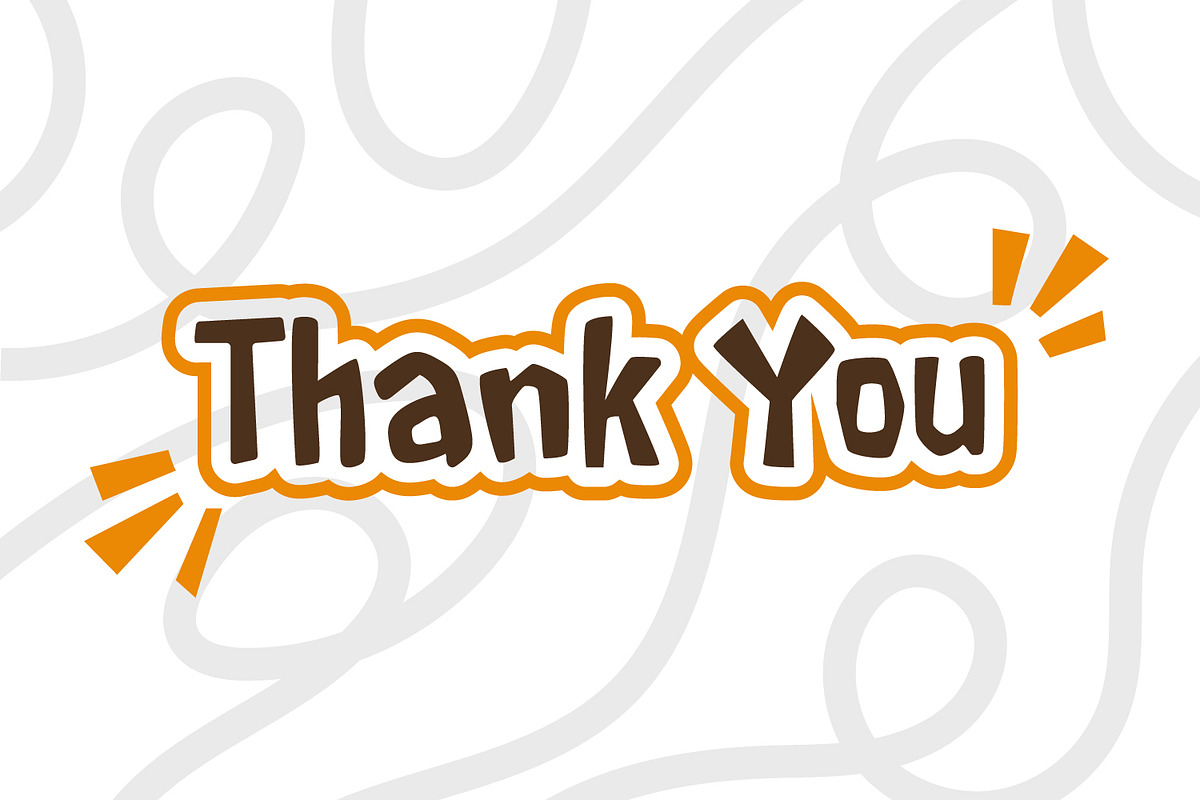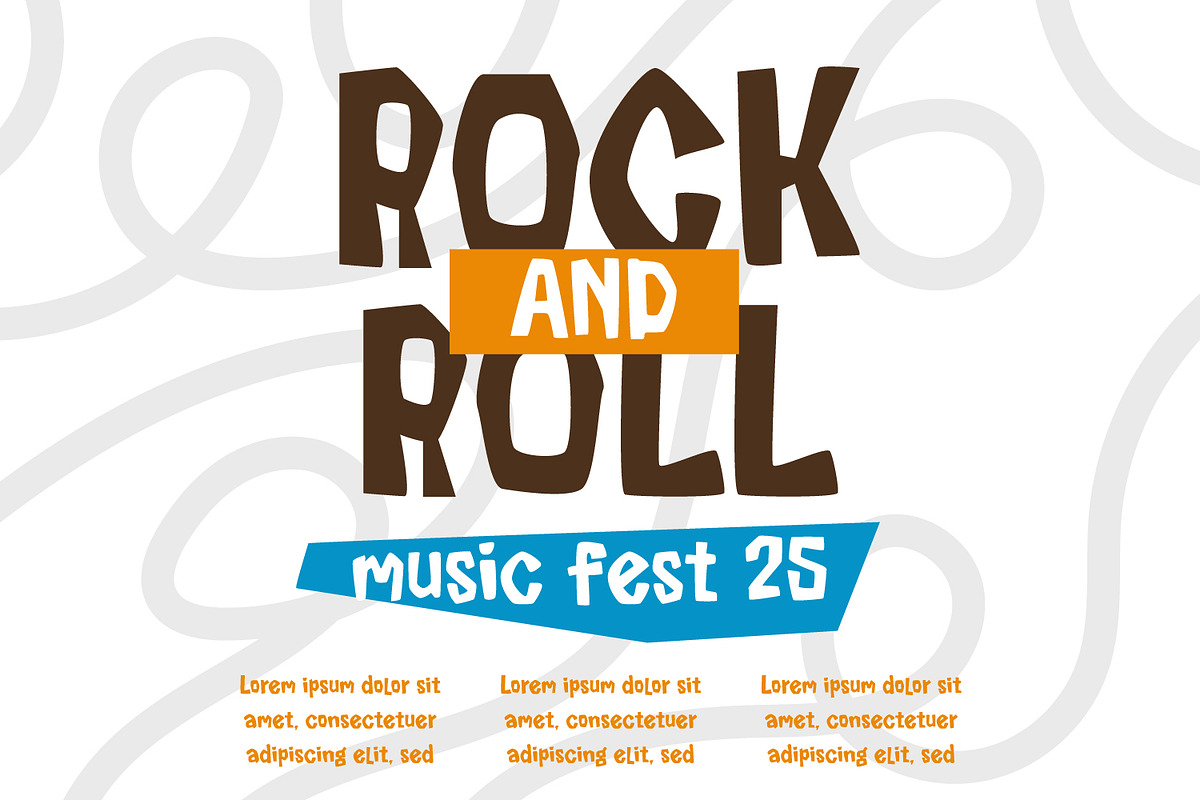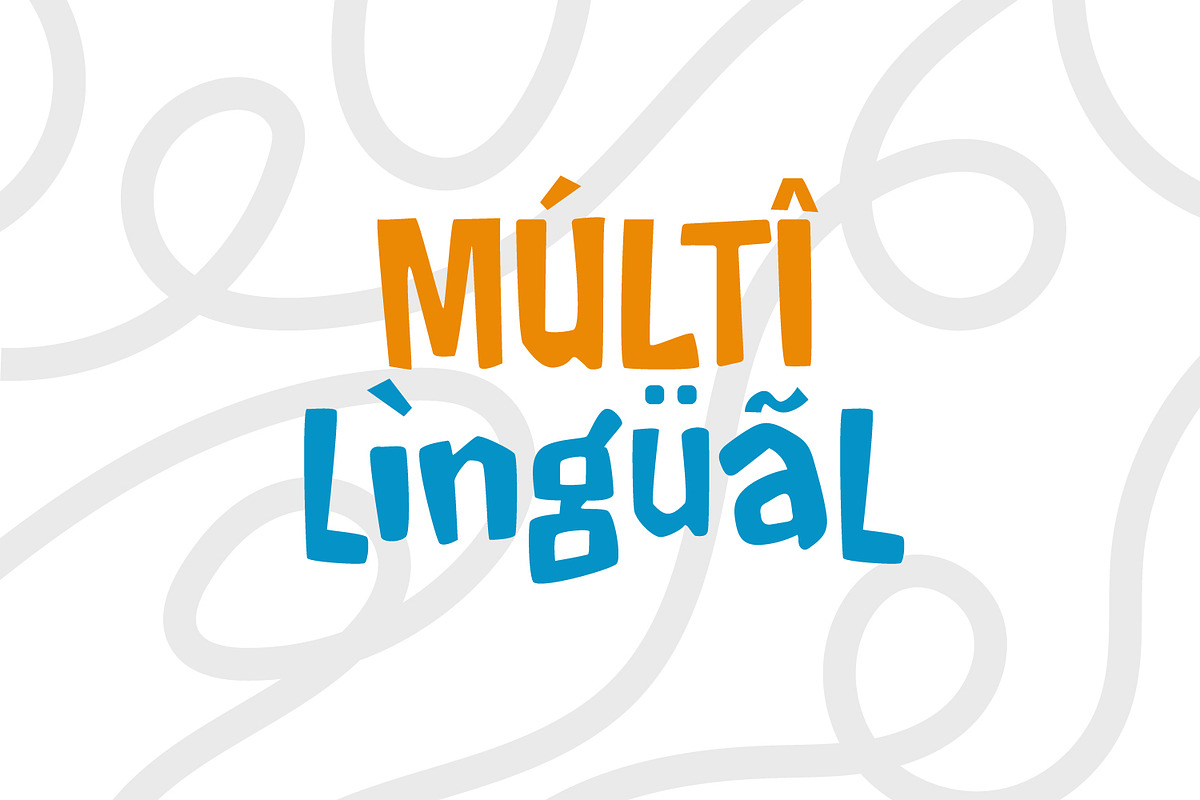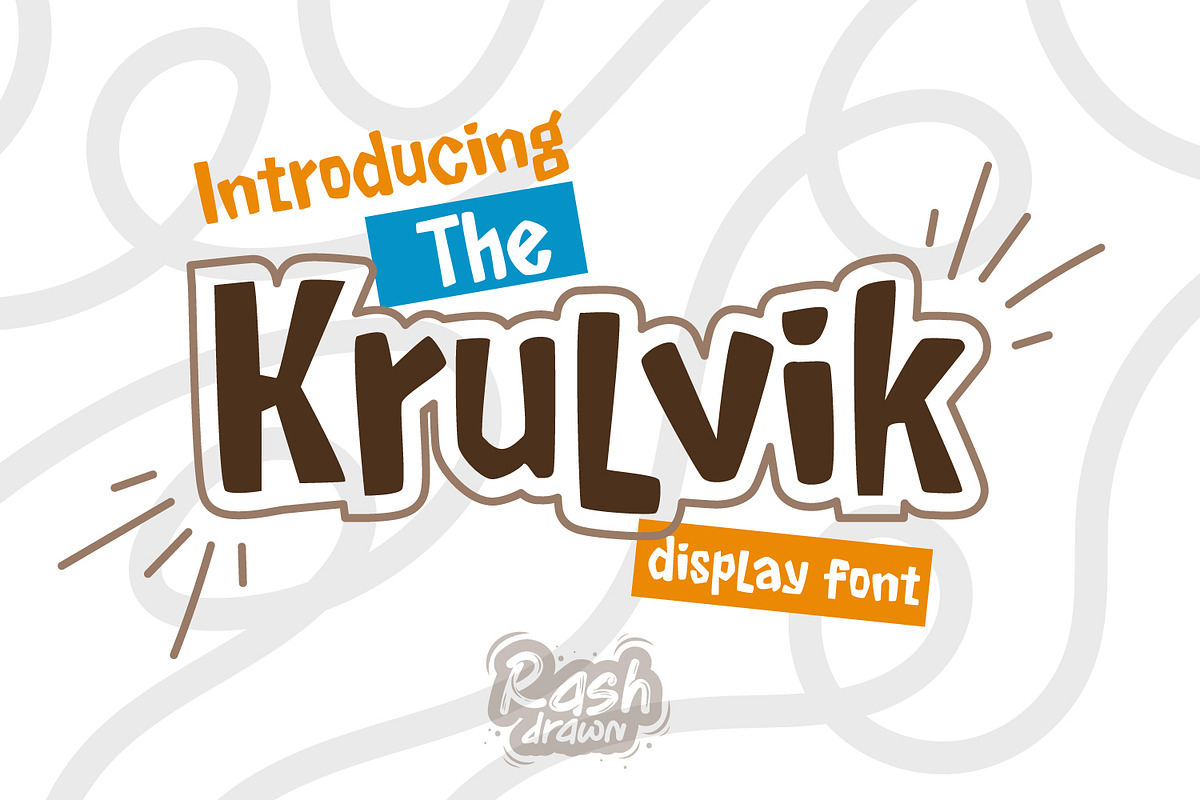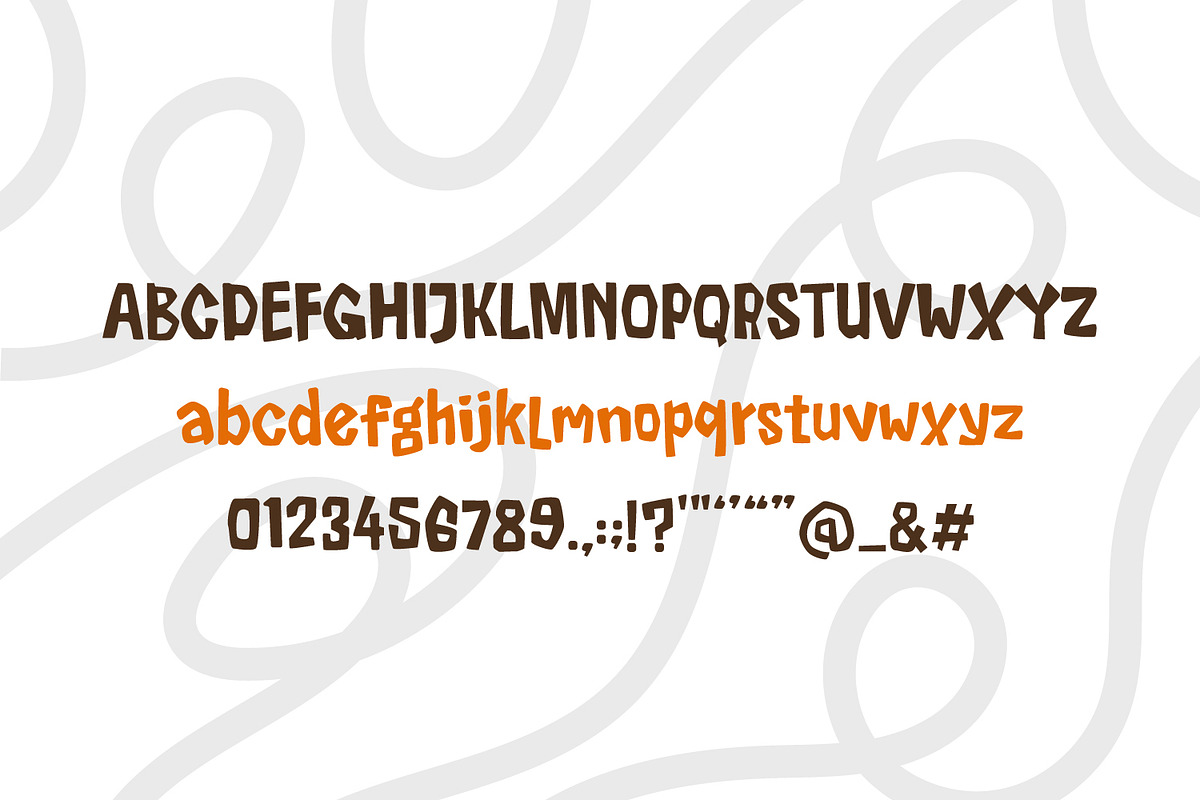
The Krulvik
Introducing The Krulvik, a modern display typeface take on a thick line style, The Krulvik font have unique shape on selective characters, that's sure make your design stand out. Use The Krulvik for most any aspect of graphic design, from logo to display designs